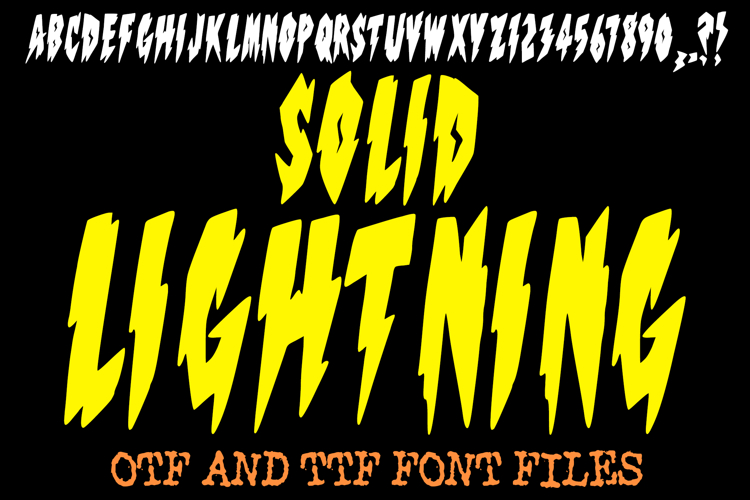
Solid Lightning Lettering ABC Thunderbolt Electric Font Type
Solid Lightning Font is a bold, electrifying display typeface that commands attention with its jagged lightning bolt design and high-energy style. Perfect for projects that need a powerful punch, this font crackles with energy — ideal for posters, gaming titles, sports logos, superhero designs, and futuristic branding.
This lightning-inspired font blends sharp edges with striking movement, creating a dynamic and impactful look. Whether you’re designing for comics, music covers, or digital art, Solid Lightning Font brings instant excitement and electrifies your typography.
Bring a surge of power to your next creative project with Solid Lightning Font — the perfect choice for energetic, bold, and attention-grabbing designs!